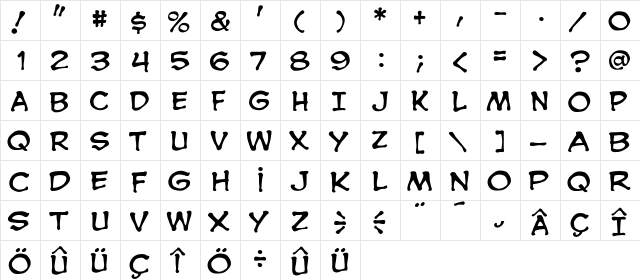
Spooky Boogey Regular
Design Context for Spooky Boogey Typeface
Spooky Boogey is a composed and adaptable typeface that performs quietly and consistently across a wide range of design contexts.